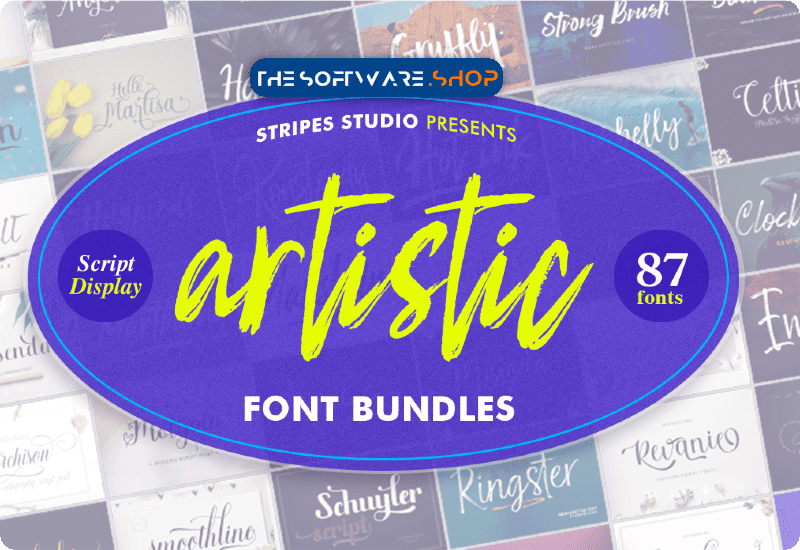
Are you ready to elevate your design game to new heights? Introducing the Artistic Font Bundle by Stripes Studio – your gateway to 87 exquisite fonts that will transform your creative vision into reality.
Discover a World of Design Possibilities
In this font extravaganza, Stripes Studio has curated a collection that includes everything from elegant script fonts to bold brush strokes. With 87 diverse fonts at your disposal, you’ll always find the perfect style to match your project’s unique character.
With the support for PUA encoding, you can effortlessly access all the glyphs and swash characters, unlocking a realm of creative possibilities. Your designs will be imbued with an exclusive touch that sets them apart from the ordinary.
Select fonts within this bundle come with underlines and swash characters, allowing you to add an extra layer of sophistication to your work. These decorative elements will infuse your designs with a touch of elegance that captures attention.
With such an extensive font selection, some designers may initially feel overwhelmed by choice. But fret not, as this minor drawback can be easily conquered through exploration and experimentation. Each font tells a unique story, waiting for you to bring it to life in your designs.